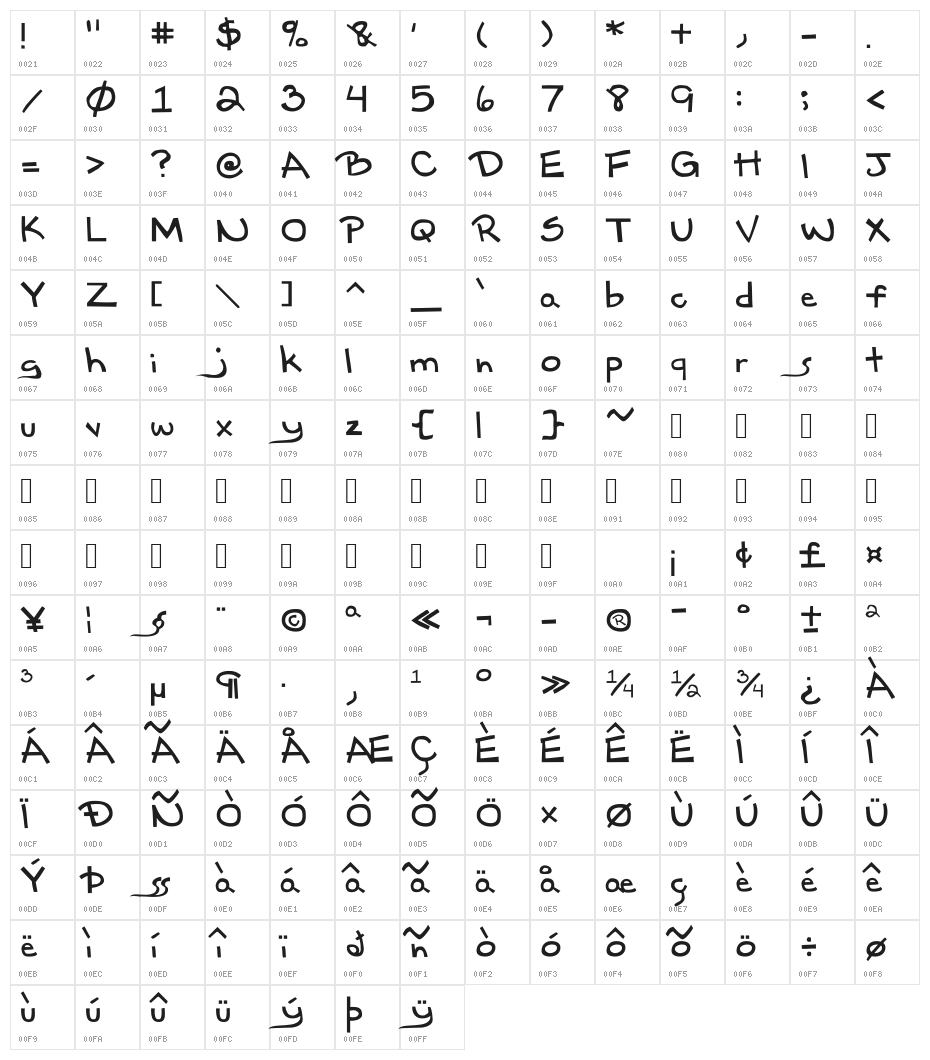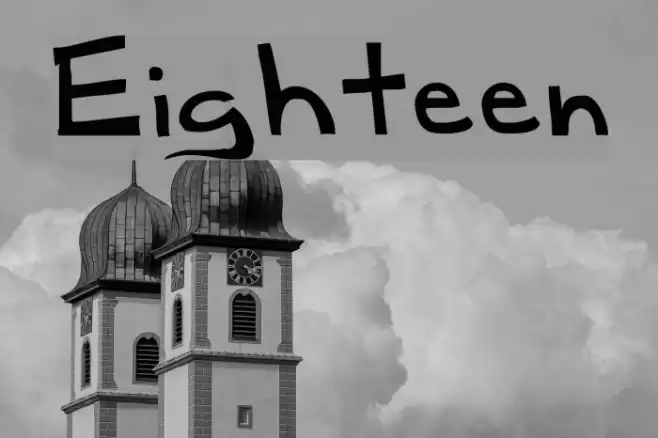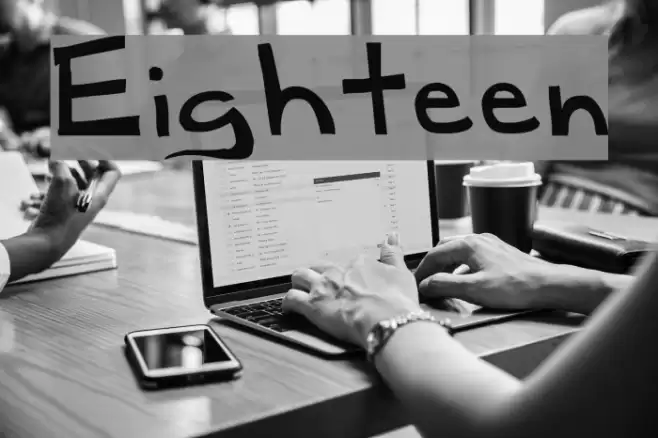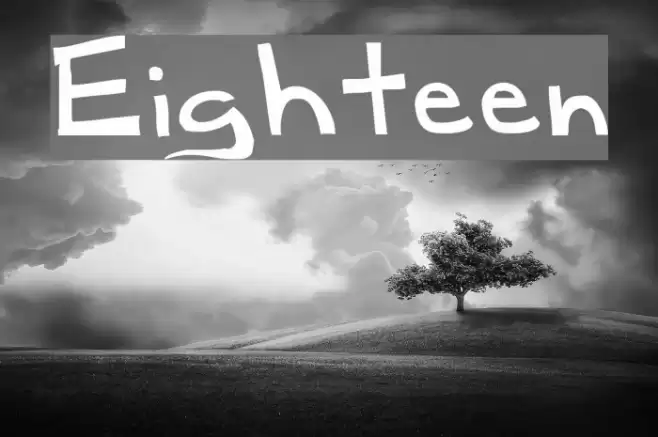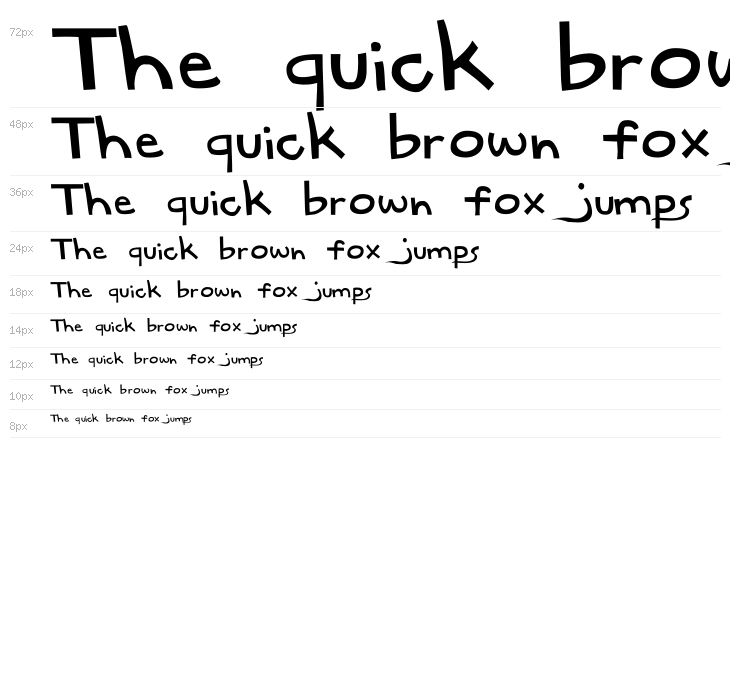
Eighteen Font
Eighteen Description
This font features a playful and dynamic style with a handwritten appearance. The characters have a casual, informal look with slight variations in stroke width, giving it a lively and energetic feel. The uppercase letters are bold and slightly irregular, while the lowercase letters exhibit a whimsical flair with some characters having unique tails and loops. The numbers are bold and consistent with the overall style, and the special characters maintain the same playful aesthetic. This font is ideal for projects that require a fun and engaging look.
| Proposed Projects | Perfect for children's books, playful branding, casual invitations, and creative posters. |